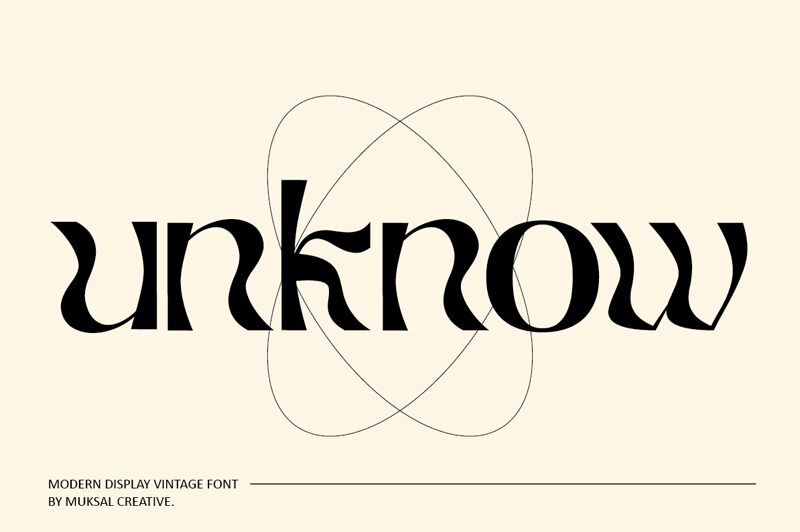
Unknow font by Muksal Creative brings a touch of retro charm to modern typography. This free font combines vintage-inspired aesthetics with a contemporary and sleek design. Created to make your text stand out, it offers high contrast and dramatic appeal for an elegant and artistic flair that's both modern and distinctive.
Perfect for logos, packaging design, headlines, book covers, greeting cards, posters, social media posts, event invitations, and apparel design. Whether it's creating a sophisticated brand or designing a vintage-themed project, Unknow font is versatile enough to enhance a wide range of creative applications.